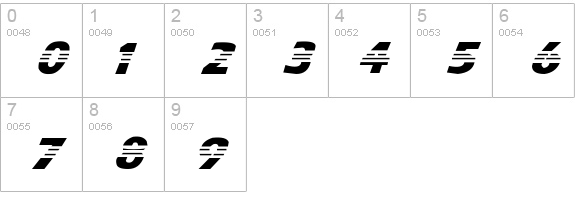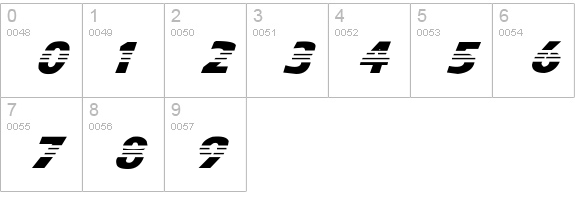
adidas Font Details
The adidas font is a modern and sleek typeface that exudes a sense of athleticism and dynamism. With its bold lines and sharp edges, this font captures the spirit of the renowned sports brand it is named after. The adidas font is perfect for creating designs that convey energy, speed, and strength. And the best part? It is freely available to download at FontsMarket.com! Whether you're designing a sports-related project, a fitness campaign, or simply looking to add a touch of sporty flair to your designs, the adidas font is a versatile choice that will surely make an impact. Download it now and unleash your creativity with this stylish and powerful typeface.